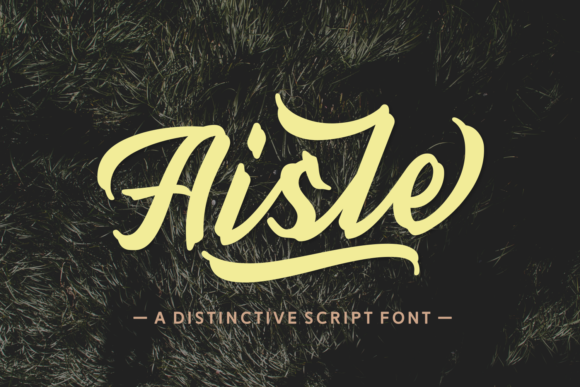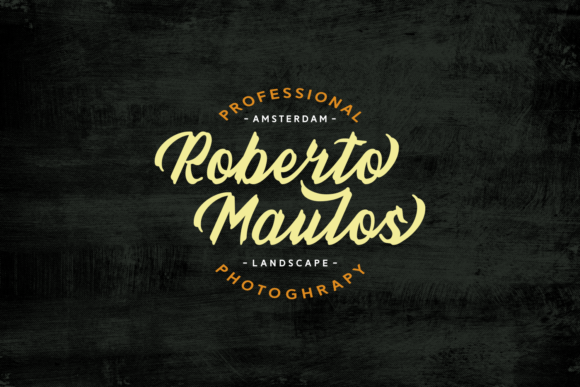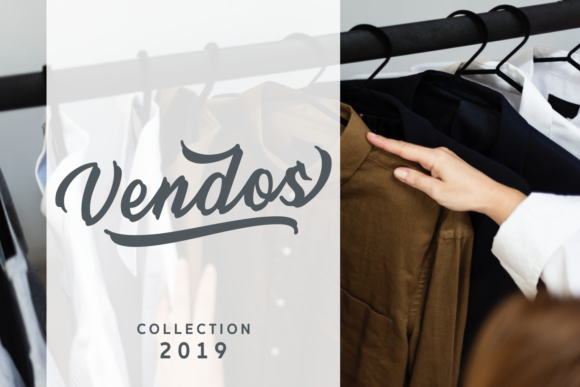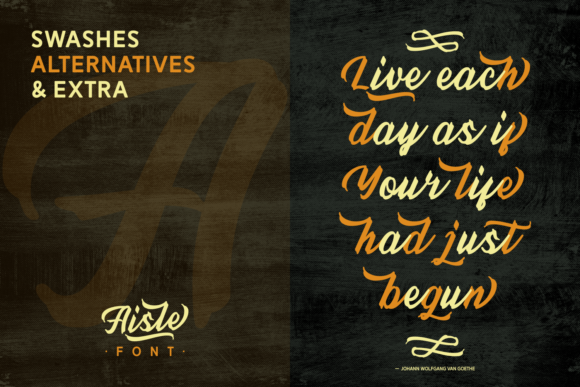
Aisle Font
About Aisle Font
Aisle is a lovely vintage font with a truly authentic feel. It will inspire any design project with its bold, retro charm.